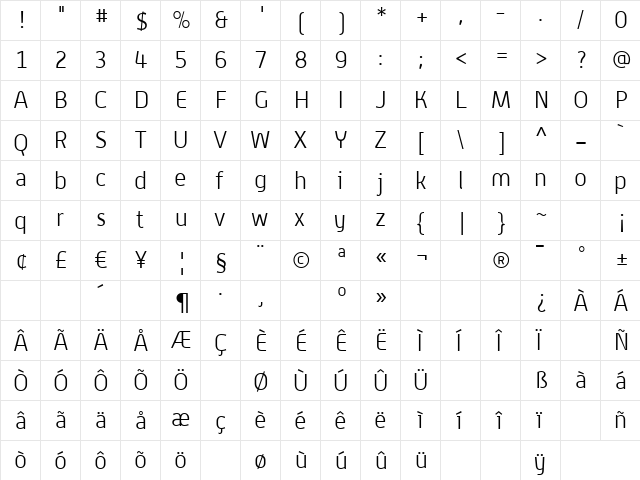
Alwyn Light
Design Context for Alwyn Typeface
Alwyn offers clean, dependable letterforms without strong stylistic allegiance, making it a practical choice for designers who need flexibility. Its slender proportions lend an understated elegance to any composition.